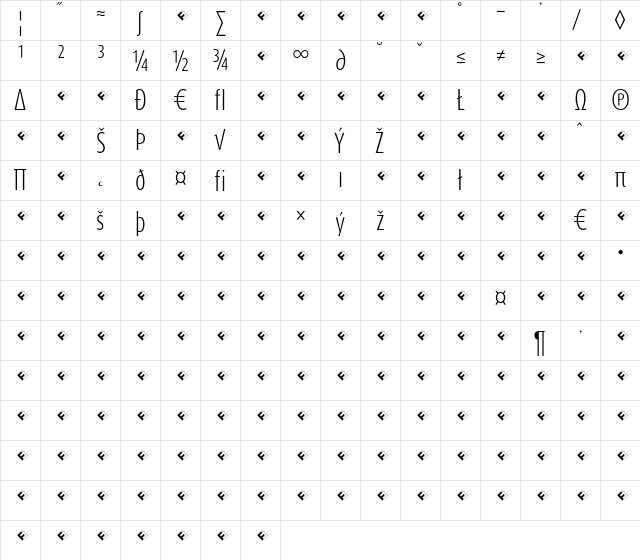
DaxCompact-LightExpert Regular Font Preview
Design Context for DaxCompact-LightExpert Typeface
DaxCompact-LightExpert offers clean, dependable letterforms without strong stylistic allegiance, making it a practical choice for designers who need flexibility. The delicate stroke weight brings airiness and refinement to layouts. The condensed width makes it efficient for tight spaces without sacrificing legibility.